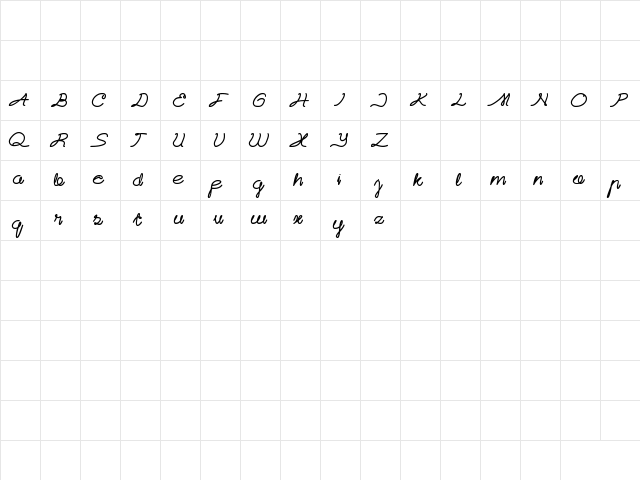
Catatan Harian Regular
Design Context for Catatan Harian Typeface
Catatan Harian is a composed and adaptable typeface that performs quietly and consistently across a wide range of design contexts.